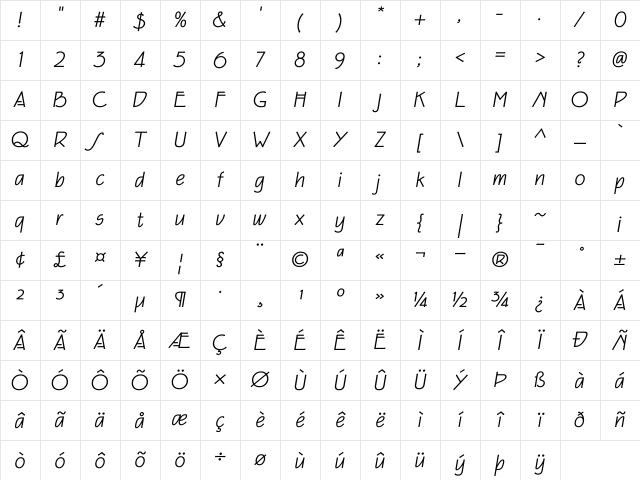
Eaglefeather NormalItalic
Style: NormalItalic
Design Context for Eaglefeather
Eaglefeather is a composed and adaptable typeface that performs quietly and consistently across a wide range of design contexts. The slanted form adds forward momentum and visual energy.
Pro Tip: Use Eaglefeather for emphasis, pull quotes, and subheadings where its slanted energy can add rhythm to the layout.